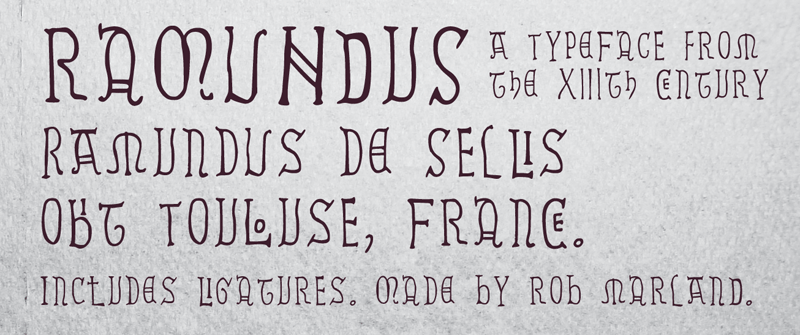
Font name: | Ramundus |
Author: | Rob Marland |
Note by Rob Marland | |
Ramundus is based on the epitaph of Ramundus De Sellis (d. 1235) and other 13th century epitaphs held at the Mus�e des Augustins, Toulouse, France. The font is shared under a CC0 1.0 Universal (CC0 1.0) Public Domain Declaration. More about Rob Marland: http://www.robmarland.co.uk |